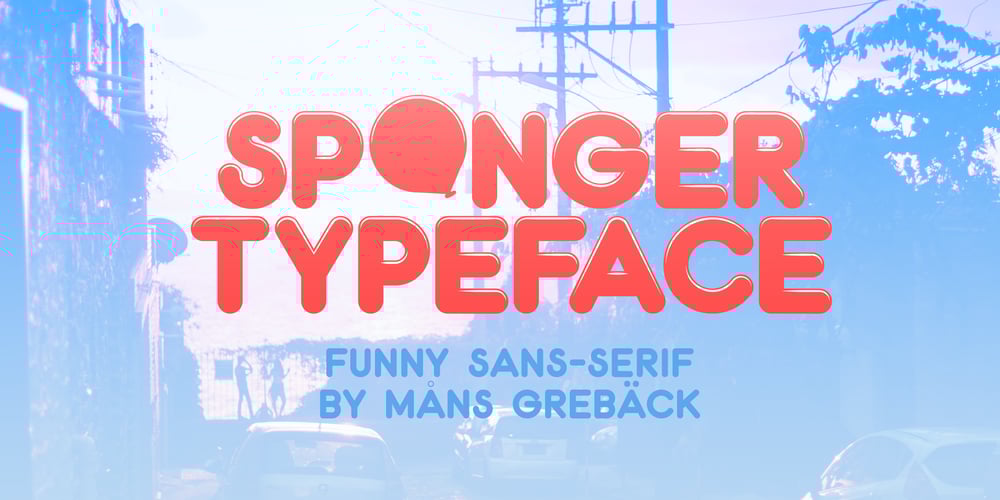
Sponger Font Family was designed by Måns Grebäck and published by Mans Greback. Sponger contains 5 styles and family package options. Spongy is a rubbery sans-serif typeface. It has round, soft shapes but a stiff and funny character. A quirky, clowny font, Spongy’s highlighted cartoon letters looks like levitating balloons. Drawn and created by Mans Greback in 2021, this comic lettering has a satirical style and a light-hearted personality.It is provided as Highlighted, Bold, Light, Solid and Outlined!The combination of these jolly jelly fonts makes for the perfect set of party and birthday types. The font is built with advanced OpenType functionality and has a guaranteed top-notch quality, containing stylistic and contextual alternates, ligatures and more features; all to give you full control and customizability. It has extensive lingual support, covering all Latin-based languages, from North Europe to South Africa, from America to South-East Asia. It contains all characters and symbols you’ll ever need, including all punctuation and numbers.